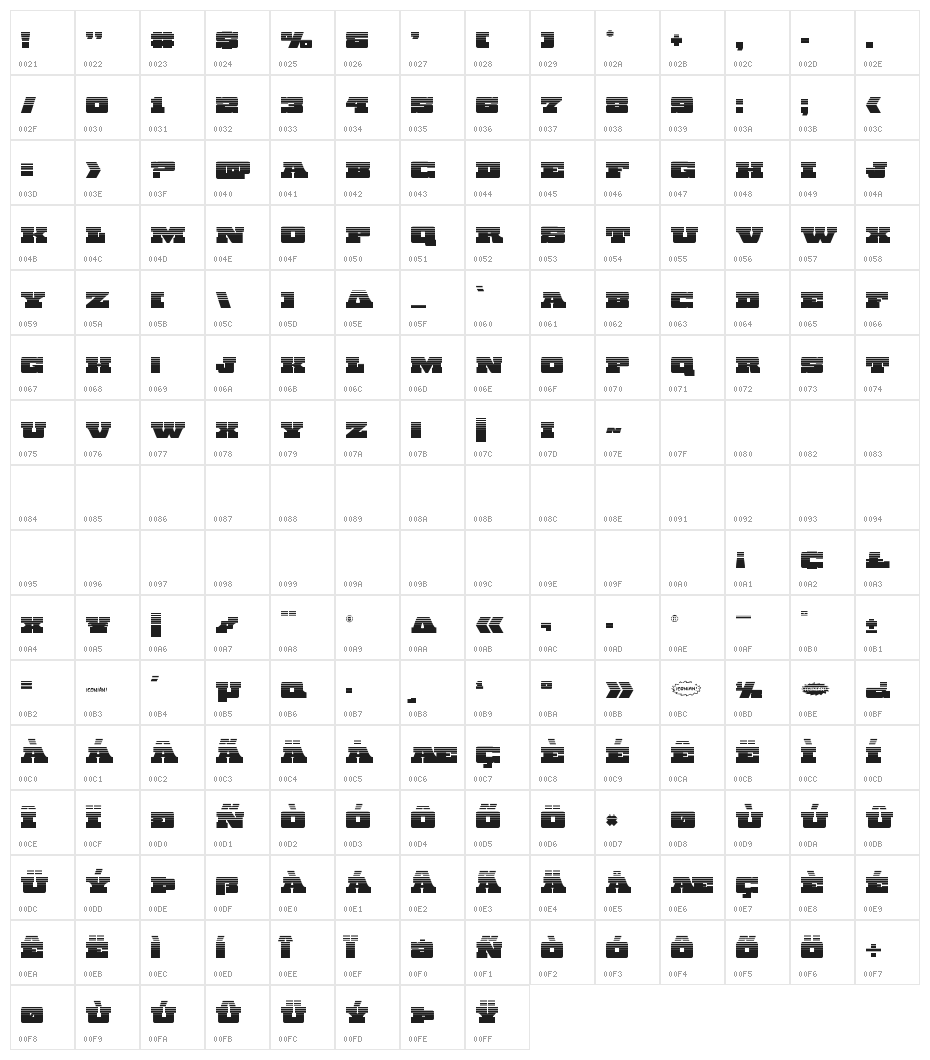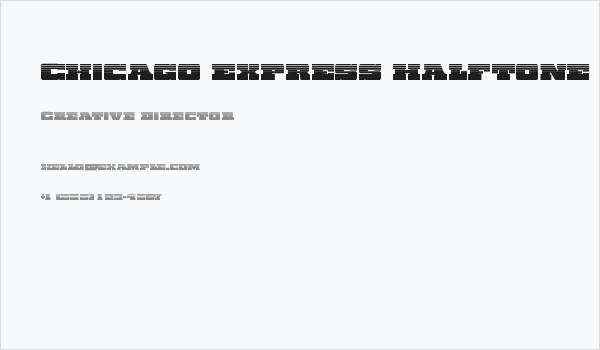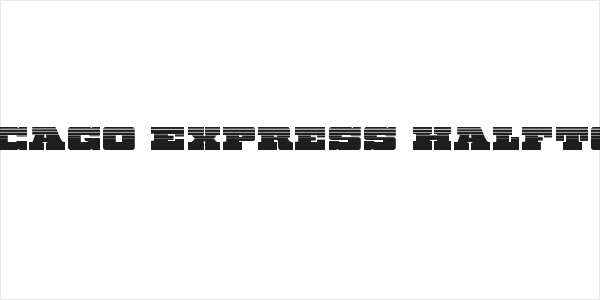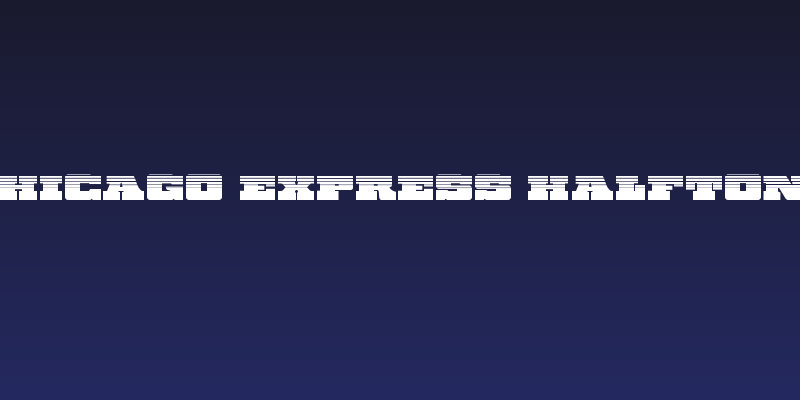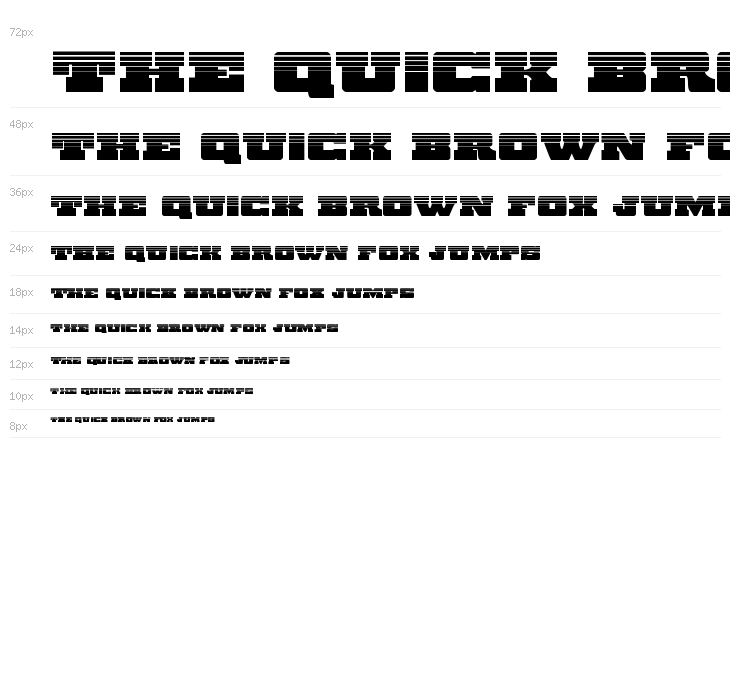
Chicago Express Halftone Font
Chicago Express Halftone Description
This font features a bold, industrial design with a distinct halftone effect that gives it a dynamic and textured appearance. The uppercase letters are robust and wide, with horizontal lines creating a layered look that adds depth. The numbers and special characters maintain this bold style, ensuring consistency across all glyphs. The font's unique style makes it stand out, ideal for projects that require a strong visual impact. Its structured form and halftone detailing make it suitable for modern and edgy designs.
| Proposed Projects | Ideal for posters, headlines, branding, and any project needing a bold, industrial aesthetic. |